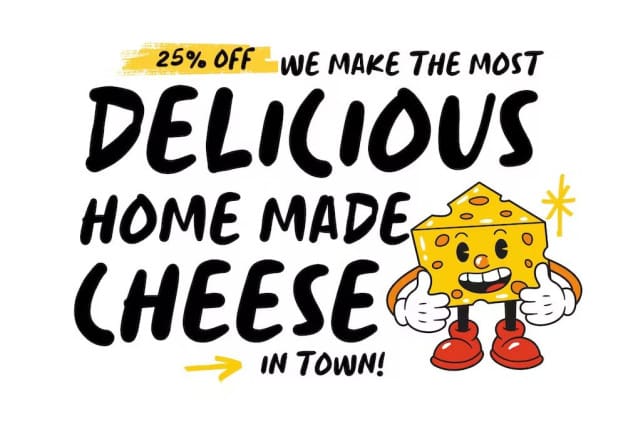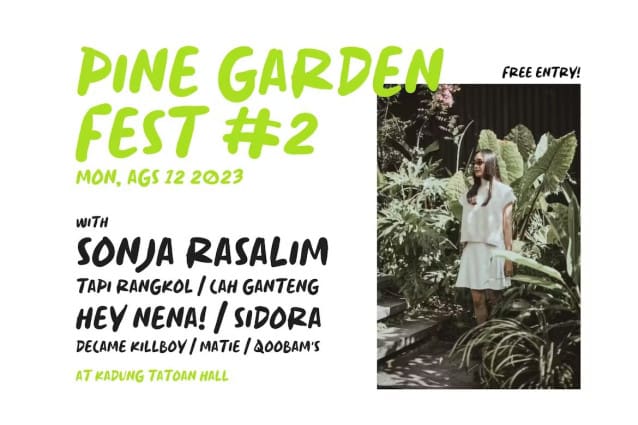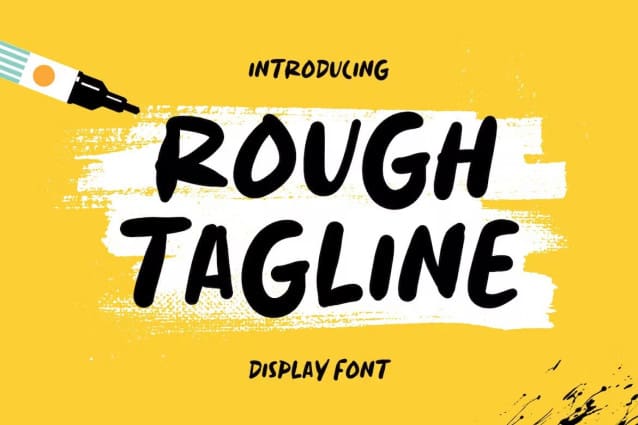
Rough Tagline Font
Rough Tagline Font – Handwritten Display Font, a bold and playful typeface that brings a unique and vibrant energy to your projects. With its handwritten style, it captures the essence of ink and marker strokes, adding a raw and authentic feel to your designs. Whether you’re creating digital posters, social media graphics, slogans, or taglines, Rough Tagline adds a modern and dynamic touch to your creative endeavors.
The bold and expressive strokes of this font make a confident statement, making it ideal for both casual and professional contexts. It’s perfect for adding a touch of creativity to your logo designs or infusing a playful tone into your social media posts. Compatible with iPad and GoodNotes, this font allows you to effortlessly bring your ideas to life with its versatility and charm.